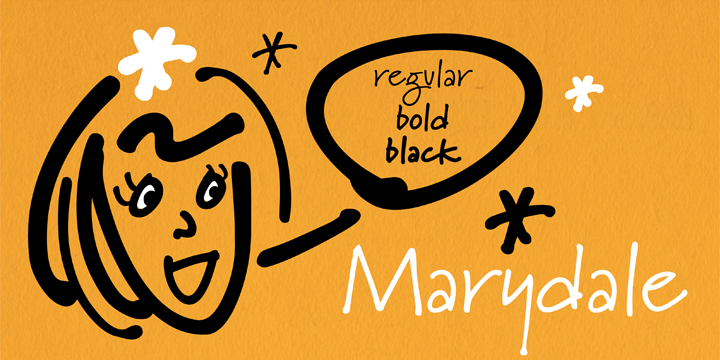
Marydale
Marydale, a highly skilled and creative art director designed this amazing typeface while helping produce a trade magazine many years ago. The incredible hand-lettering made this font a desirable element for many purposes. The penmanship of the designer was widely commemorated. This impeccable attempt to come up with something new earned her worldwide eminence. The … Read more